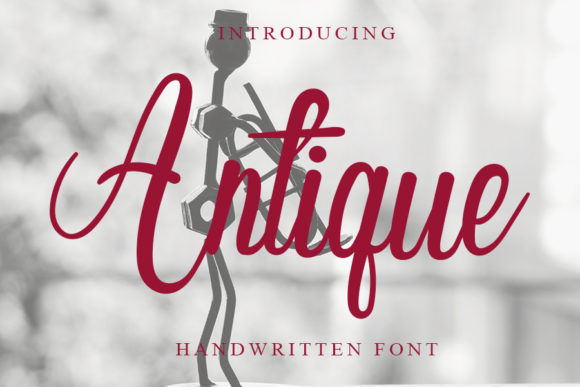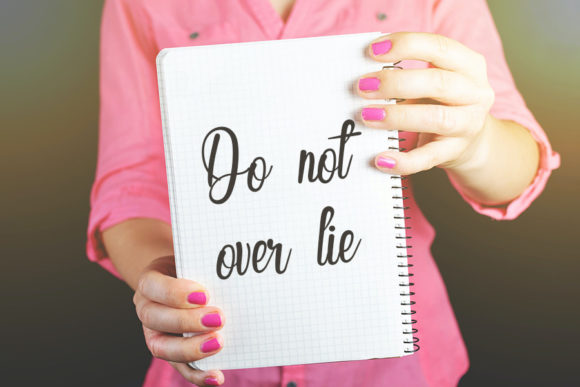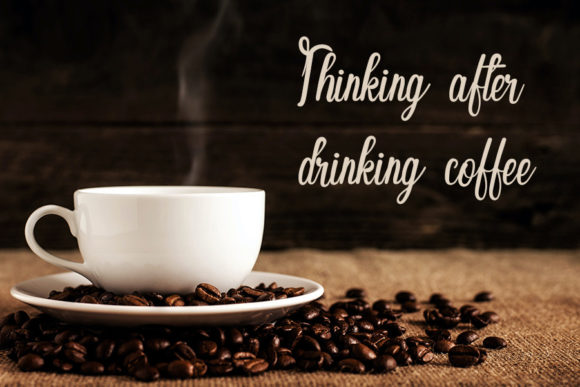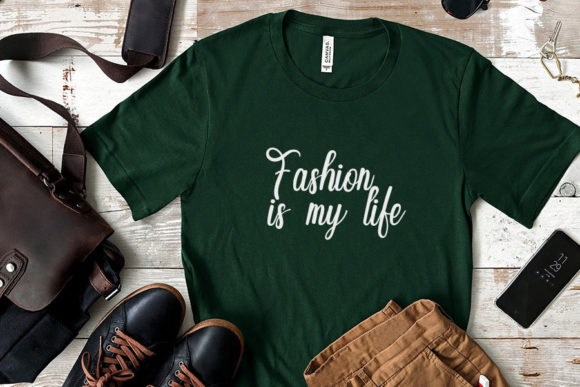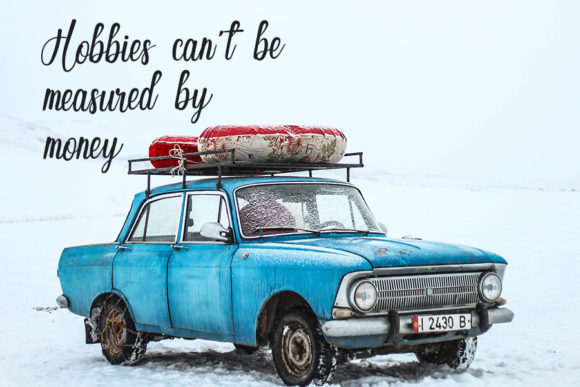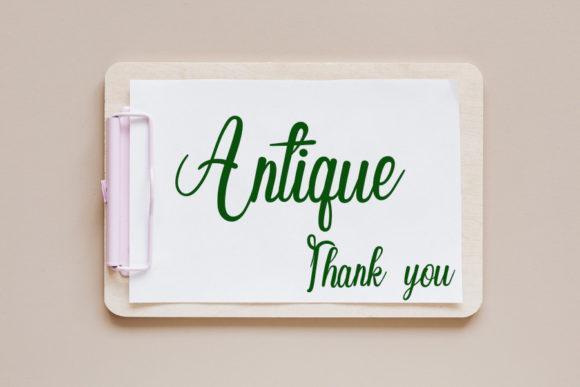
Antique Font
About Antique Font
Antique is a cool handwritten font with a modern vibe and spotless form, inspired by a classic calligraphy. Not too thin and not too thick, balanced and varied, this font was designed to enhance the beauty of your projects.